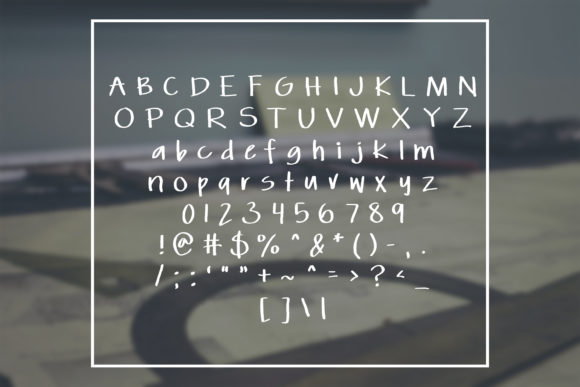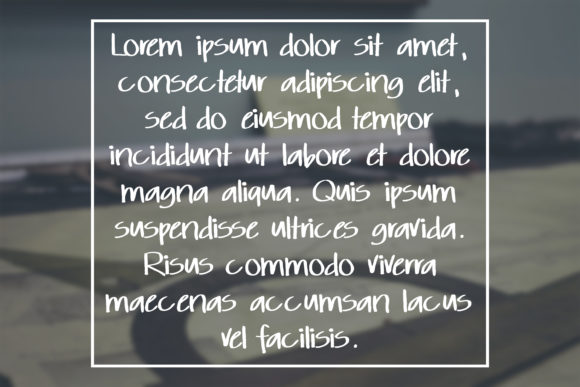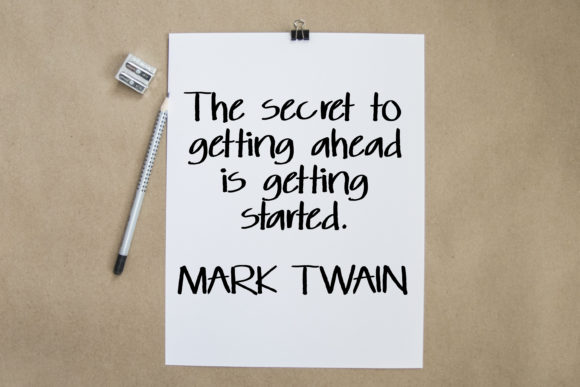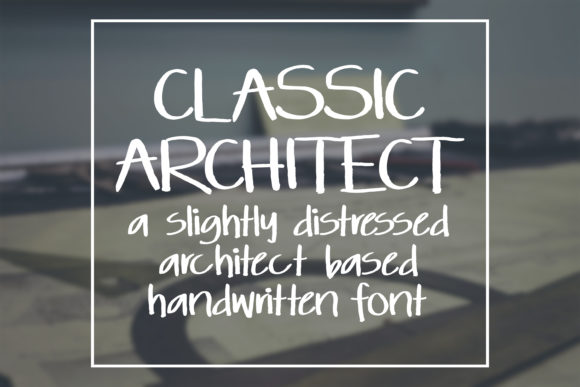
Classic Architect Font
About the Classic Architect Font
Welcome to the world of Classic Architect Font, a typeface that will inspire your next great project. The Classic Architect is a slightly distressed handwritten font! Its boy-ish look would be a great complement to any script font.
Its slightly distressed aesthetic makes it ideal for headlines, logos, and short text blocks on packaging or posters where a touch of informal character is desired. Avoid using it for body text or long paragraphs; the handwritten style hinders readability at smaller sizes. It’s not suitable for UI elements or situations demanding high legibility.
The Classic Architect font exudes a playful yet dependable personality. Think handcrafted goods, coffee shops, breweries, or children’s book illustrations. Its informal energy is balanced well by pairing it with a clean sans-serif like Montserrat for body copy, or a more geometric sans-serif like Futura for a modern contrast.
A classic serif like Garamond could also provide a sophisticated counterpoint, creating a stylish juxtaposition of formal and informal elements in a design.
Classic Architect Font Usage Examples
Classic Architect Font Example